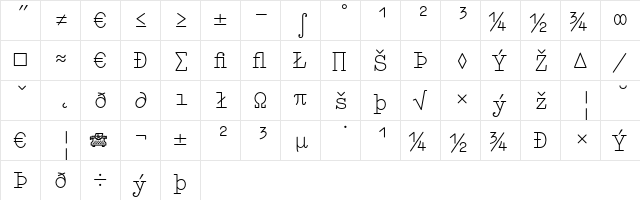
Elementa Expert Regular Font Preview
Elementa Expert Regular
Elementa Expert Regular Font Details
Design Context for Elementa Expert Typeface
Elementa Expert offers clean, dependable letterforms without strong stylistic allegiance, making it a practical choice for designers who need flexibility.